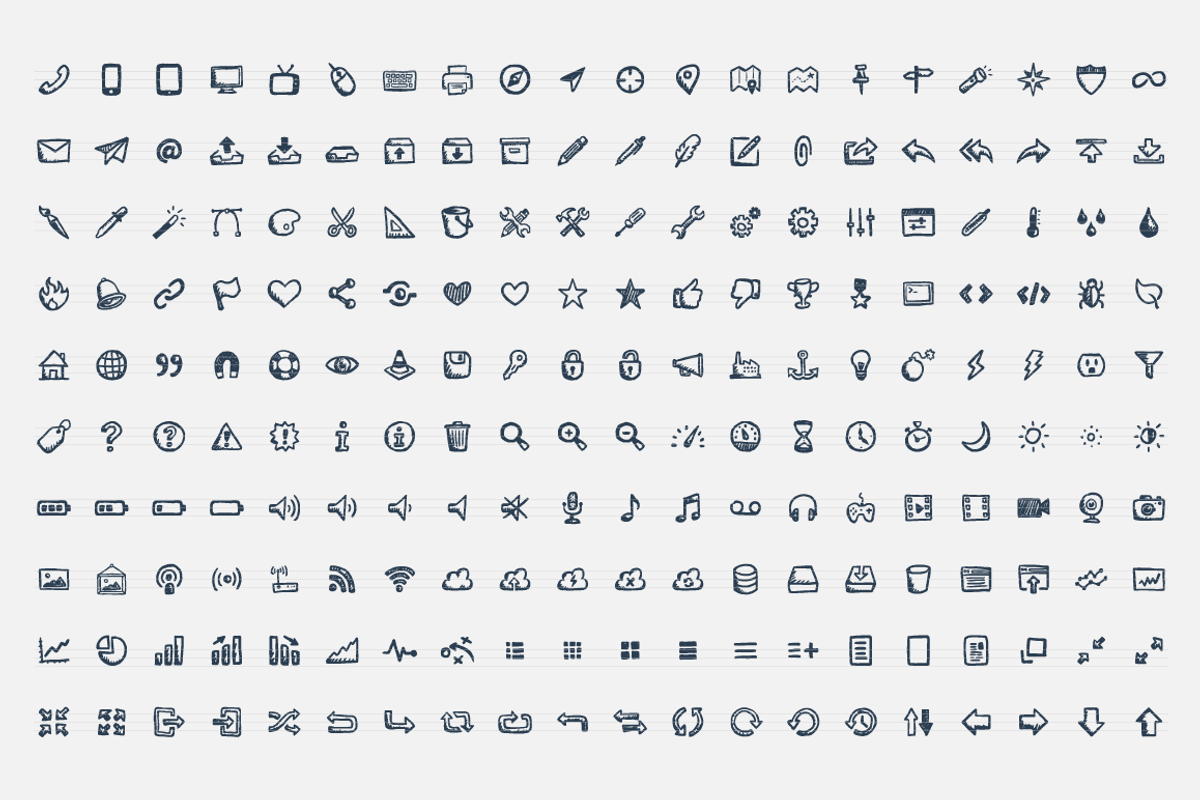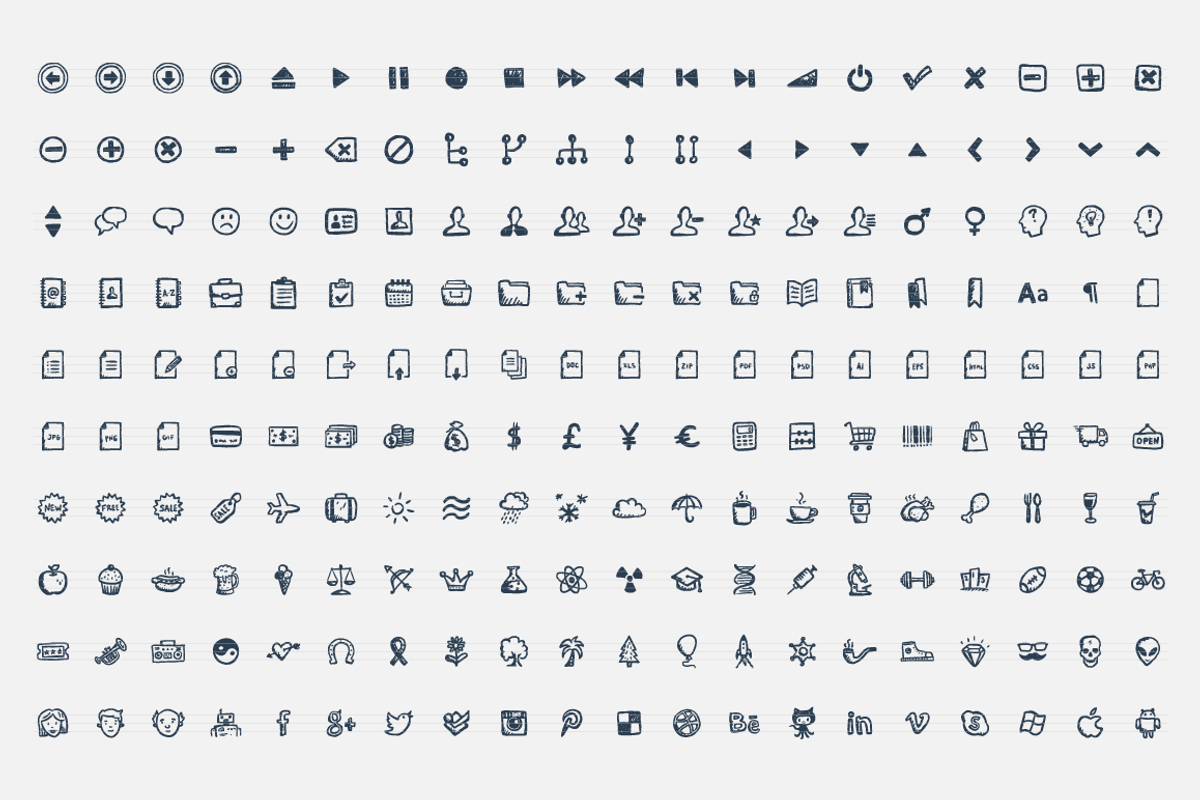
Jolly Icons Font
Jolly Icons Font by Hand-Drawn Goods is a font selected for branding, posters, packaging, typography.
- Jolly Icons Font includes characters from the following categories: web, interfaces, technology, multimedia, weather, social networks, commu
Why Jolly Icons Font is worth a look
Jolly Icons Font by Hand-Drawn Goods fits naturally into Branding, posters, packaging, typography.